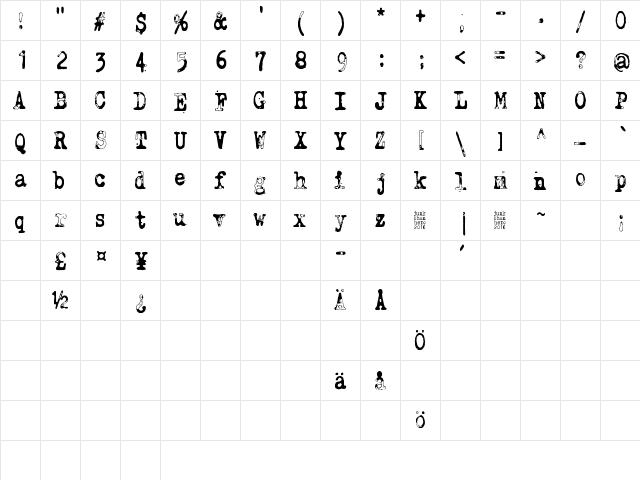
Why do we blink so frequently? Jungle
Design Context for Why do we blink so frequently? Typeface
Why do we blink so frequently? is a composed and adaptable typeface that performs quietly and consistently across a wide range of design contexts.